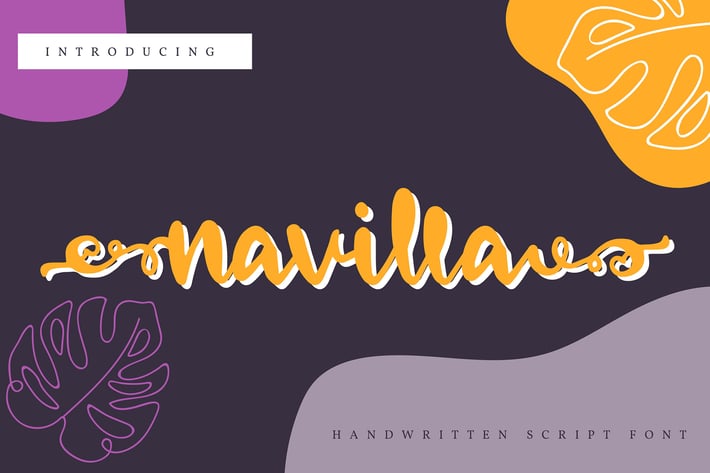
Navilla | Handwritten Script Font
Navilla | Handwritten Script Font with a calligraphy style, So beautiful on invitation like greeting cards, branding materials, business cards, quotes, posters, and more!